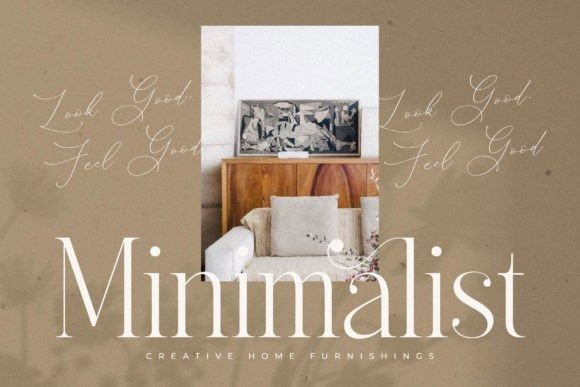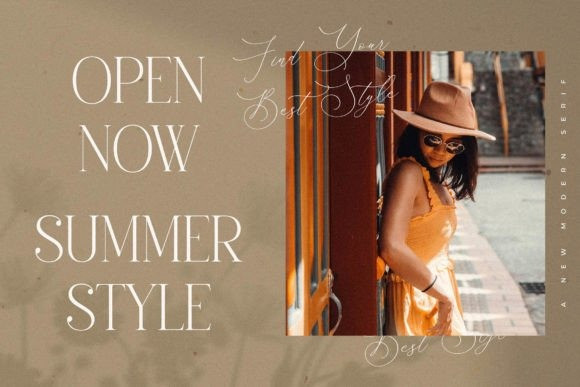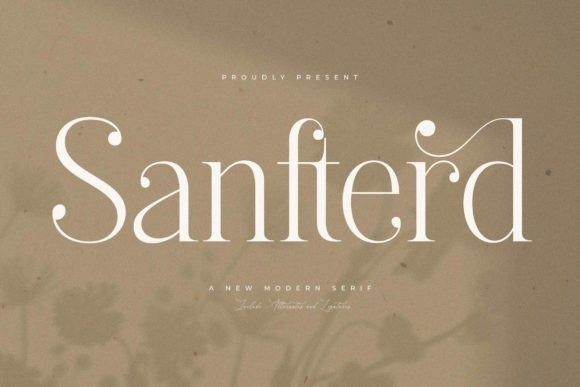
Sanfterd Font
Sanfterd Font– A serif modern and classic typeface that has its own unique style & modern look. This typeface is perfect for an elegant & luxury logo, book or movie title design, fashion brand, magazine, clothes, lettering, quotes, and so much more.